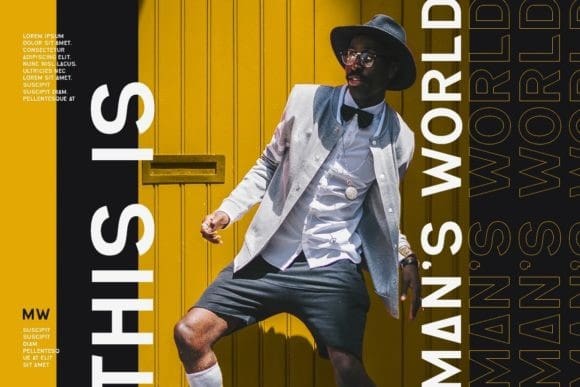
Walton Font
Walton Font is a bold and thick lettered and neat sans serif font. No matter the topic, this font will be an incredible asset to your fonts’ library, as it has the potential to elevate any creation.